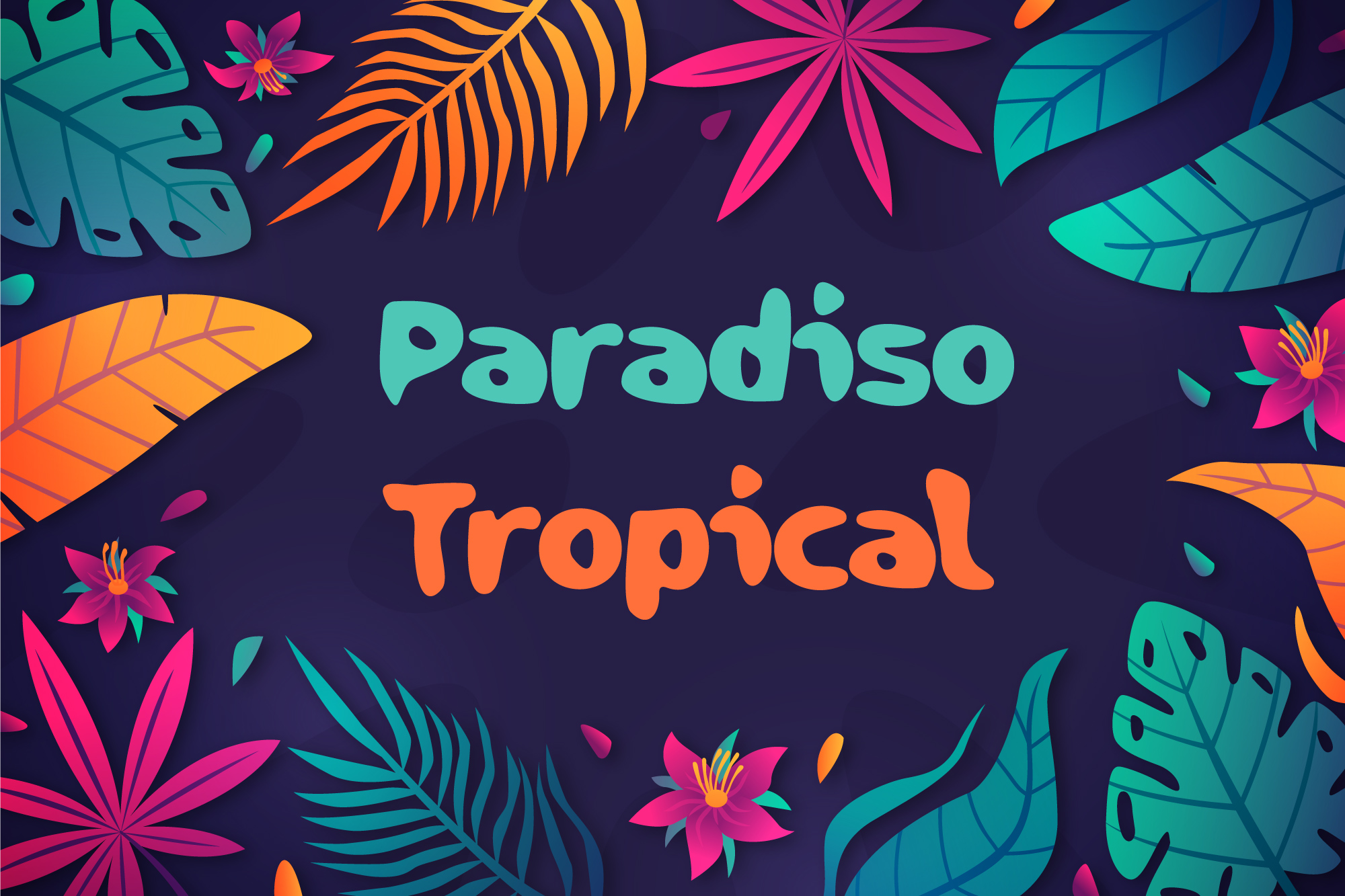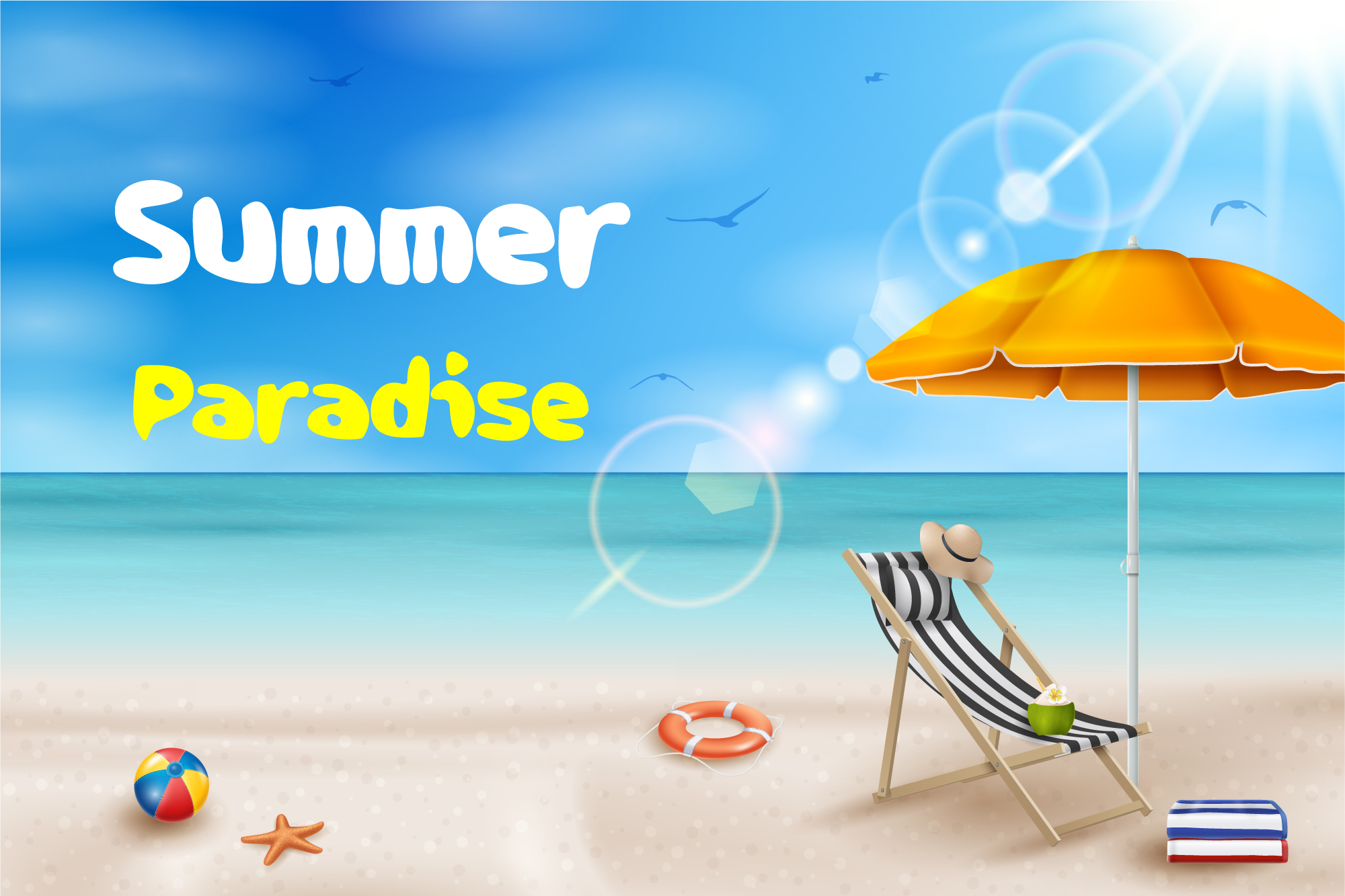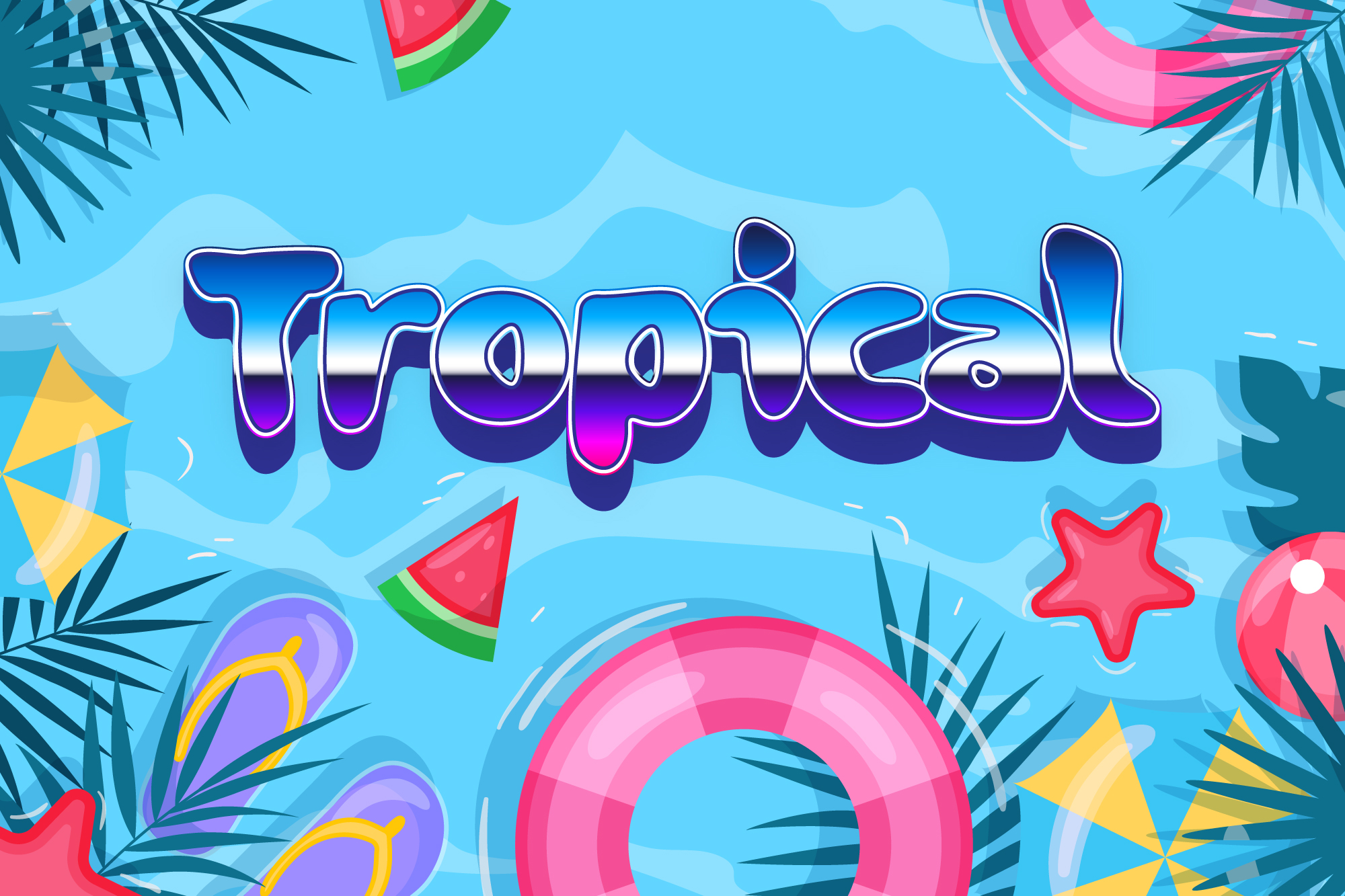
Paradiso Tropical Summer Font
This fun and unique summer font is perfect for adding a touch of paradise to your next project! Whether you’re looking for a title font for your vacation scrapbook or a tropical-themed party invitation, Paradiso Tropical is sure to make a statement. This font includes upper and lowercase letters, numbers, and punctuation.